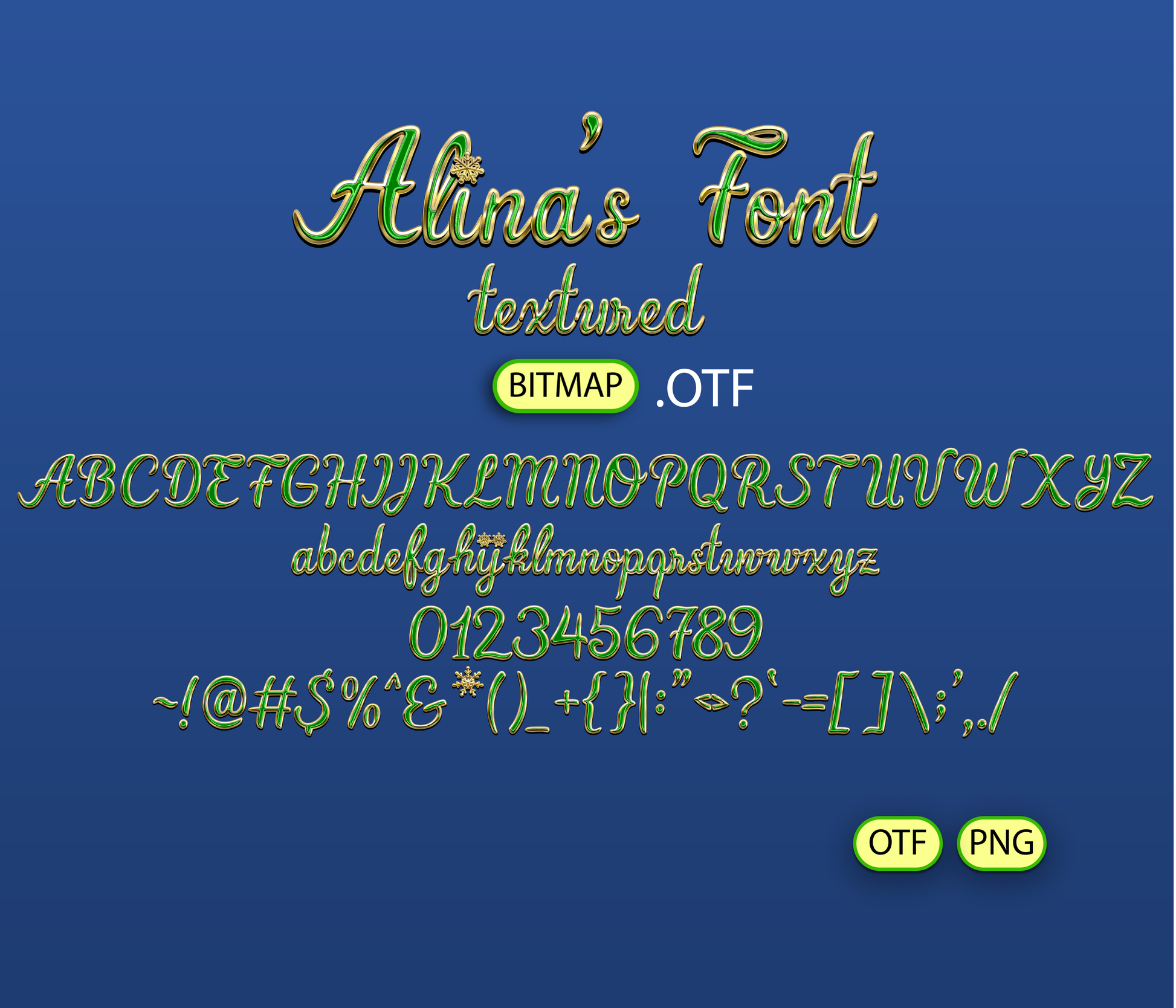
Festive Christmas Font Textured
Festive Christmas Font Multicolor
Step into the vibrant world of joyful holiday celebrations with our Festive Christmas Font Multicolor, capturing the essence of colorful festive cheer and lively seasonal traditions. Perfect for holiday crafters, sublimation designers, small business owners, and creative professionals, this font brings the bold, celebratory spirit of multicolor Christmas to your projects. Create heartwarming greeting cards, merchandise, or digital content with the dynamic energy of the holiday season.
Festive Multicolor Typography for Holiday Crafts & Seasonal Design
Our Festive Christmas Font Multicolor features vibrant, eye-catching letterforms with holiday-themed textures reflecting the world of colorful decorations and joyful seasonal celebration.
- Event Promotions: Create enchanting invitations, posters, and banners for Christmas parties, holiday markets, and seasonal gatherings that capture the spirit of vibrant festive celebration
- Merchandise Design: Perfect for holiday apparel, ornament tags, gift packaging, and accessories that showcase the lively aesthetic of multicolor Christmas magic
- Digital Media: Enhance websites, blogs, and social media with dynamic headers and graphics that express the warmth of colorful holiday traditions
- Craft Content: Add authentic festive charm to greeting cards, sublimation projects, and creative designs inspired by vibrant Christmas festivities
- Personal Projects: Bring seasonal joy to scrapbooking, DIY crafts, and home decor inspired by the world of multicolor holiday celebrations
Our font pays tribute to the iconic world of vibrant holiday traditions and colorful festive design, empowering your projects with its bold and celebratory spirit. Whether crafting seasonal materials, designing Christmas products, or adding a multicolor touch to personal projects, this font communicates the heartwarming essence of dynamic holiday magic. Ready to inject festive Christmas cheer into your creations? This font is your key to vibrant, impactful design.